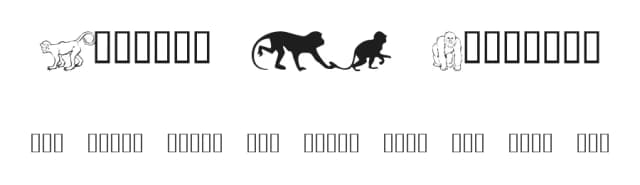
About Critters 1 DC Font
Critters 1 DC is a dingbat font designed by Ozmee. It includes 30 glyphs, a semibold weight, and TTF (TrueType) format. Critters 1 DC is free to download; check the license details on this page before commercial use. Dingbat fonts like Critters 1 DC work best for icons, ornaments, bullet points, and decorative accents.
Critters 1 DC Font is a versatile dingbats font that works for both headings and body text. Pair it with a contrasting sans-serif or serif font to add visual interest and a clear distinction between titles and body copy.
Critters 1 DC Font
by Ozmee
Critters 1 DC Font is a dingbats typeface by Ozmee, ideal for logos, invitations, branding, and creative projects.